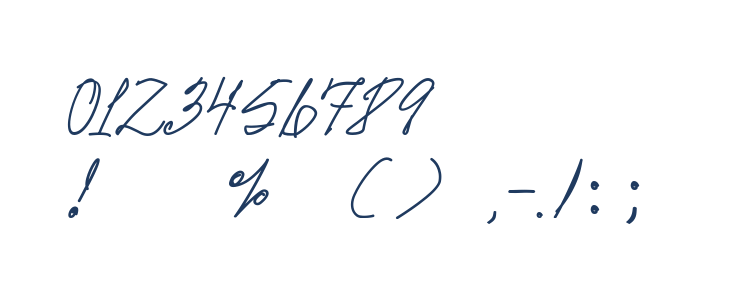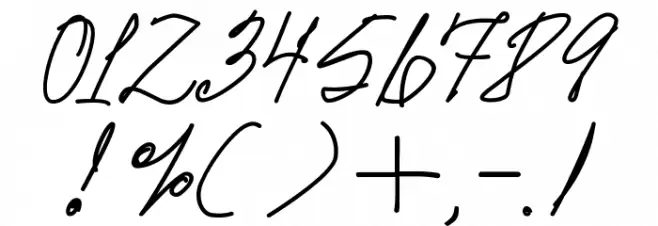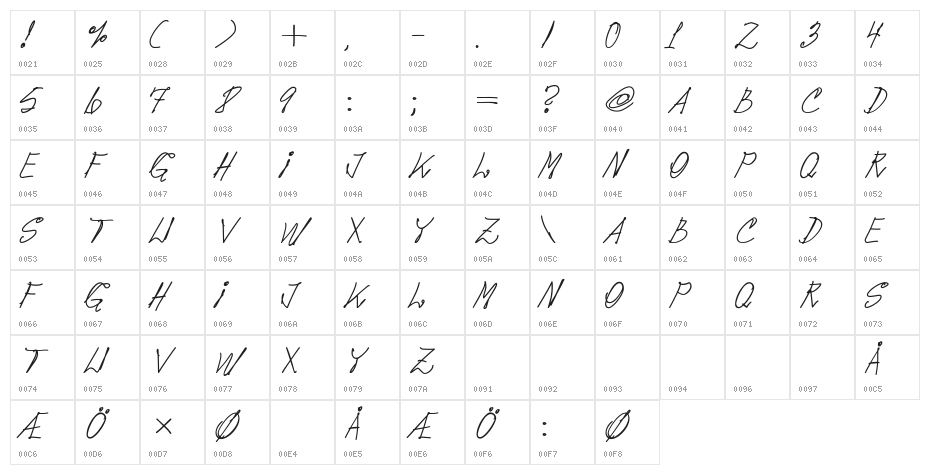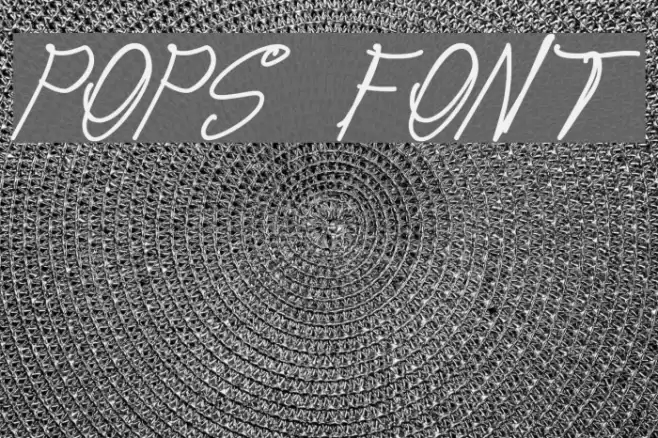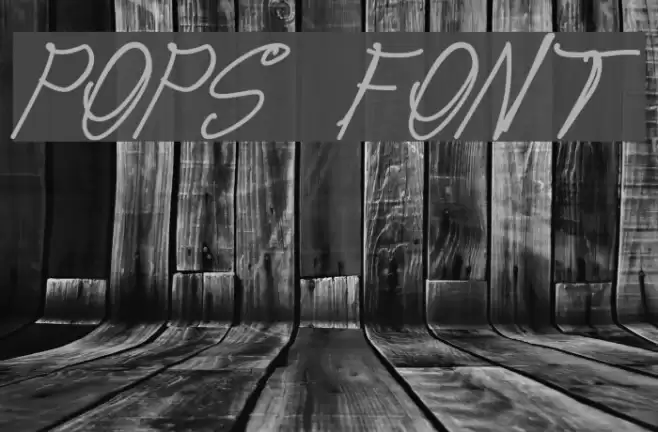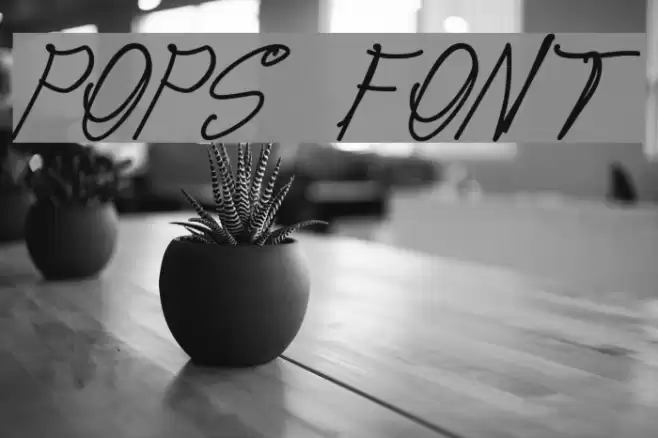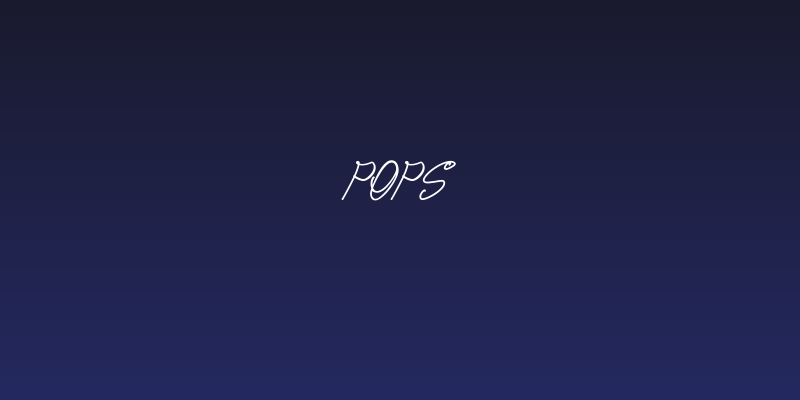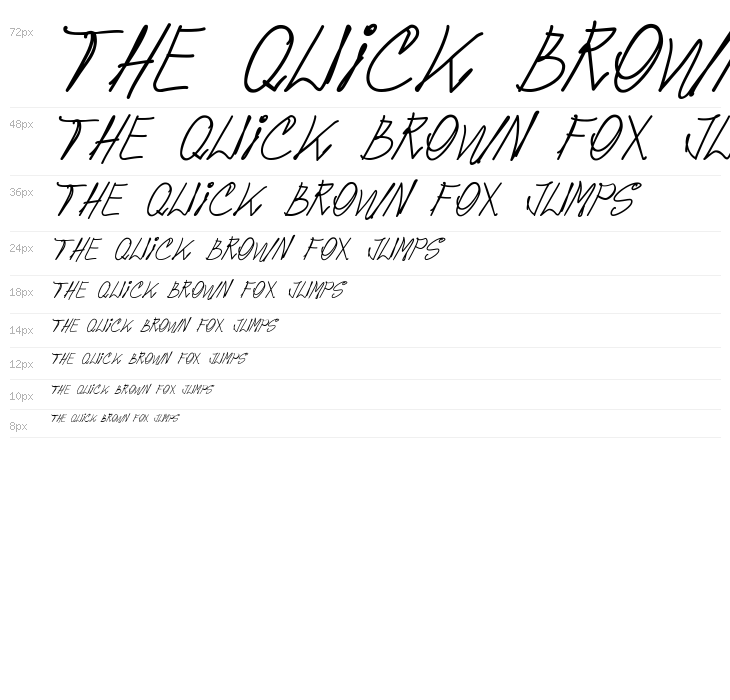
pops Font
pops Description
This font exudes a lively and dynamic energy, characterized by its handwritten, cursive style. The letters are fluid and connected, with a playful yet elegant flair. The strokes vary in thickness, adding a sense of movement and personality. The uppercase and lowercase letters maintain a consistent flow, while the numerals and special characters complement the overall aesthetic. This font is ideal for projects that require a personal touch or a creative, informal vibe.
| Proposed Projects | Ideal for greeting cards, invitations, personal branding, and creative projects that require a personal touch. |